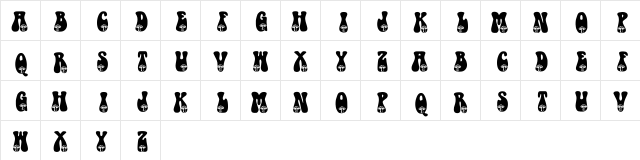
KR Shroom Regular
Design Context for KR Shroom Typeface
KR Shroom is a composed and adaptable typeface that performs quietly and consistently across a wide range of design contexts.
Pro Tip: Use KR Shroom in both headline and body roles to test its range before committing to a single application.